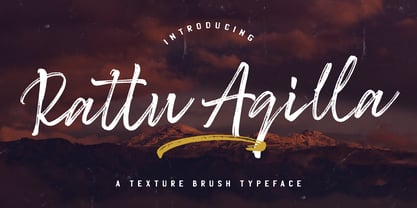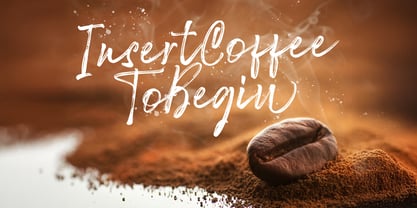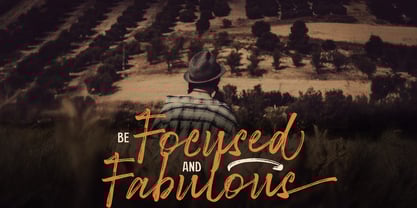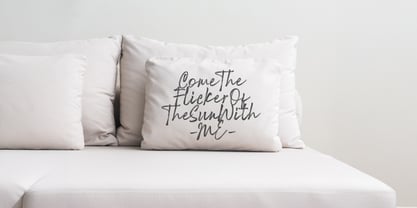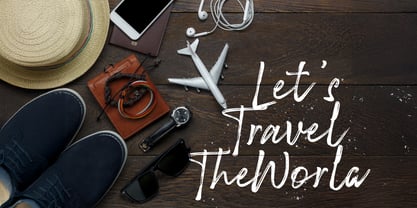
Rattu Aqilla
von Stringlabs Creative Studio
Die Schriftfamilie Rattu Aqilla wurde von Virgiawan Listanto entworfen und von Stringlabs Creative Studio veröffentlicht. Rattu Aqilla enthält 1 Stile.
Rattu Aqilla is a textured handwritten brush font, created with the help of a authentic brush. Get inspired by its unique and beautiful style and add it to your favorite designs!
Über Stringlabs Creative Studio
Hello! I’m Virgiawan Listanto, a designer based in Serang, Banten – Indonesia.I’m the founder of Stringlabs Creative Studio, established in 2015. Initially created as a platform to explore and showcase typography, the studio has grown into a dedicated type foundry.We began creating fonts as a hobby in 2019, with a focus on handwritten, brush, display, and blackletter fonts — styles we believe are expressive, timeless, and versatile for creative projects. Our mission is to craft fonts that are not only visually appealing but also practical and smart for everyday use by designers.Beyond typography, I have a deep love for all things creative — including layout design, UI/UX design, and other forms of visual expression. Creativity fuels everything we do at Stringlabs.